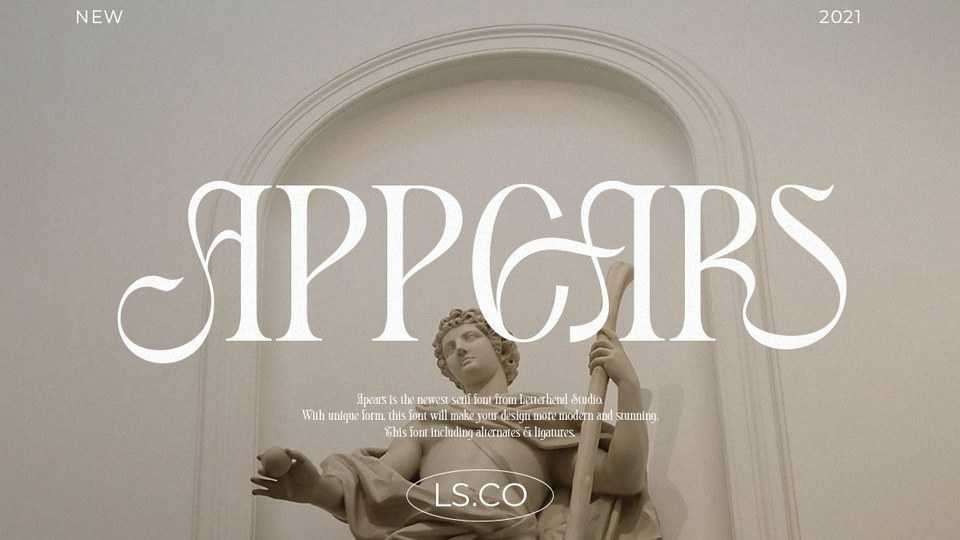
Download Appears font, a stylish and incredibly elegant display serif typeface. Appears has neat and sleek letterforms that make it looks great to be used for modern and minimalistic design theme.